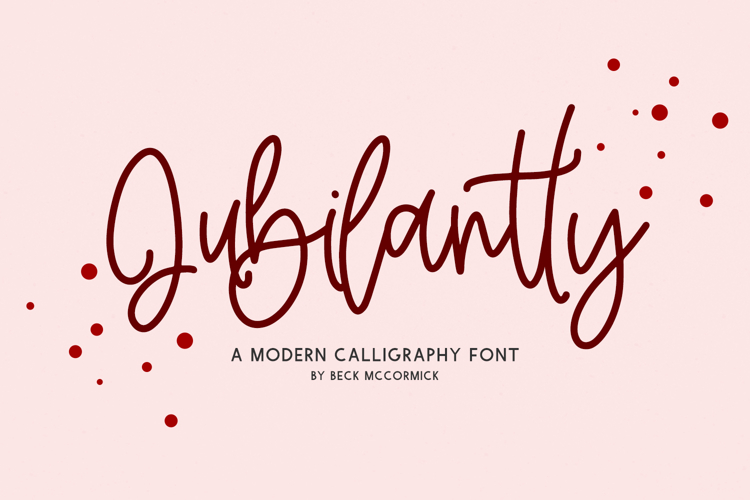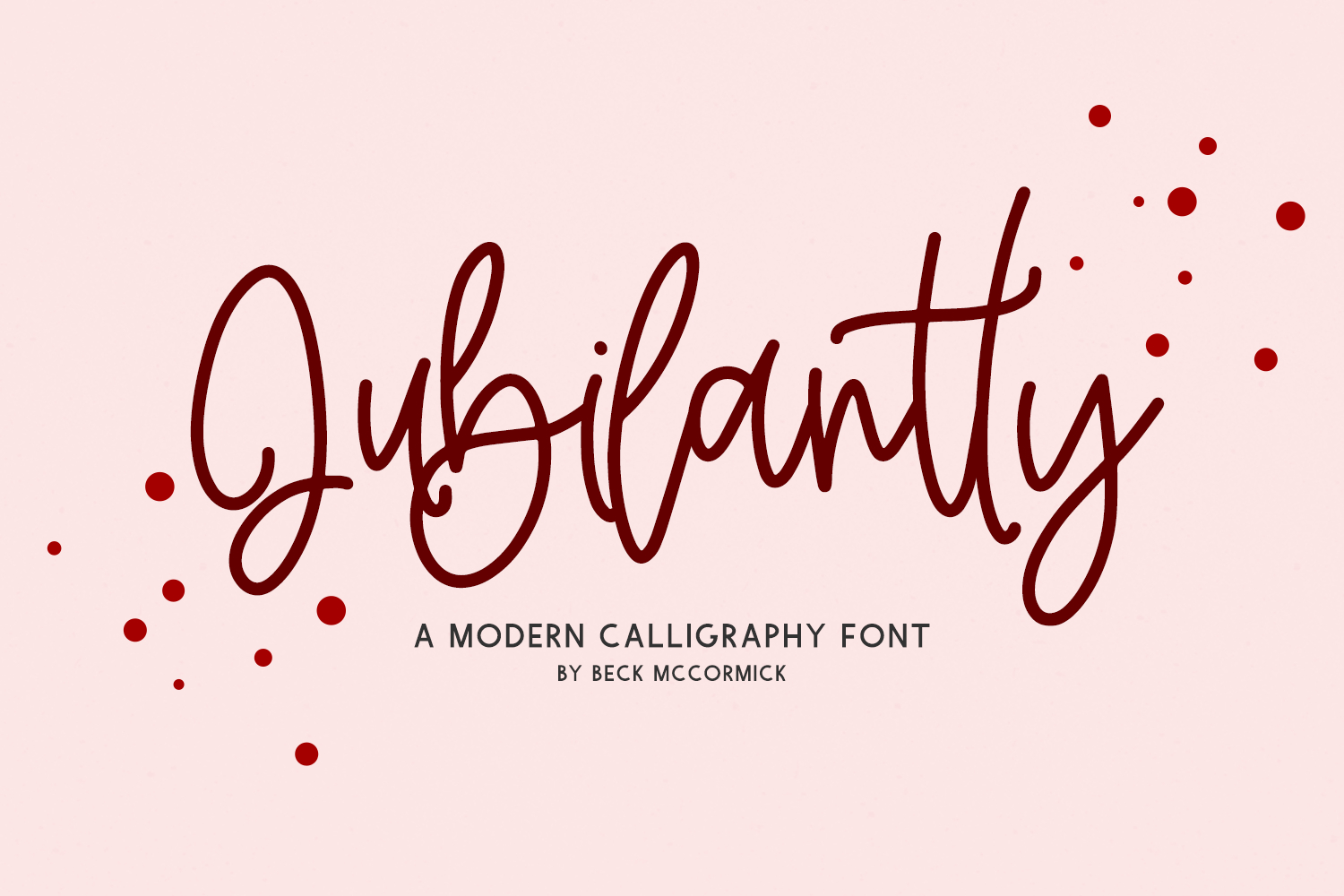
Jubilantly Script
Introducing Jubilantly Script, a handlettered modern calligraphy script. Jubilantly features 26 alternates & 10 ligatures to enhance the handwritten look & feel of your project.
Jubilantly is best for:
- modern farmhouse decor and crafts
- website design + website accents, blog design
- feminine graphic tee shirt design & other apparel
- Christmas projects like cards & gift tags
- 26 alternates
- 10 ligatures - bb, dd, ff, ll, mm, nn, oo, rr, ss, tt